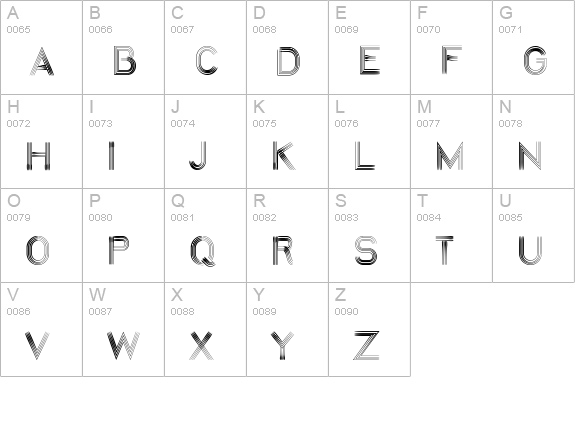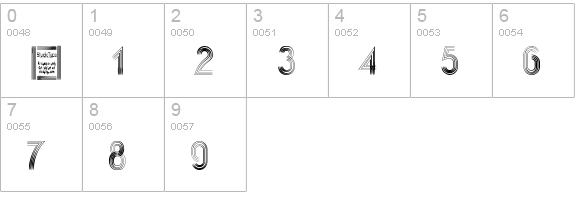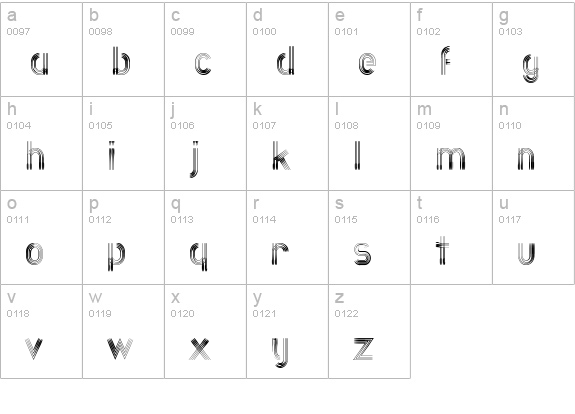
Quatroline Font Details
Quatroline font is a stunning display typeface that is sure to captivate with its unique and modern design. With its clean lines, geometric shapes, and bold letterforms, this font exudes a sense of sophistication and elegance. The beauty of Quatroline font lies in its versatility, making it suitable for a wide range of design projects. Whether you're working on a logo, branding materials, advertising campaigns, or even social media graphics, this font will undoubtedly make a lasting impression. One of the best aspects of Quatroline font is that it is available for free download at FontsMarket.com. This means that you can add this beautiful font to your design arsenal without any cost. With just a few clicks, you can have access to this incredible font and start creating eye-catching designs that will leave a lasting impact. Not only is Quatroline font visually stunning, but it is also incredibly easy to use. Its well-crafted letterforms ensure readability and legibility, even at smaller sizes. This makes it perfect for various applications, from print to digital. Whether you're a professional designer or someone who simply enjoys creating visually appealing designs, Quatroline font is a must-have. Its sleek and modern aesthetic, combined with its availability for free download, makes it an irresistible choice. So why wait? Head over to FontsMarket.com today and get your hands on the Quatroline font. Elevate your design projects to new heights with this stylish and freely available typeface. Download it now and let your creativity soar.